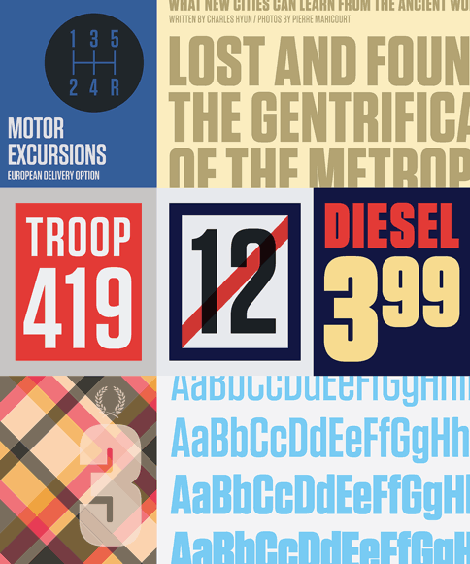
New Typeface “More Steve McQueen than Steven Seagal”
Tungsten is a flat-sided sans serif family that's muscular and persuasive without sacrificing wit, versatility, or style.
The Hoefler and Frere-Jones foundry has released a new type family called Tungsten. It's a compact and sporty sans serif that's disarming instead of pushy -- not just loud, but persuasive.
Flat-sided sans serifs have been a vital part of graphic design since its very beginning. Like many of typography's loveliest styles, these letters are an import from sign painting, where the style -- doubtless because its kit of lines and curves resembles plumbing -- is colorfully known as "Modern Gaspipe." These modular letters were an important part of the twentieth century poster, bright and optimistic in the propaganda of the Works Projects Administration (WPA), and peremptory in the Constructivism of the young USSR. In the service of any agenda, what these letters always signified was modernity, industry, and zeal.
Typographers have explored this compact modular style with mixed results. Typefaces that stay true to Depression-era forms run the risk of becoming nostalgic, forever evoking the sentimental Americana of tuxedo jackets and automats. Other designs, if they stick more doggedly to the underlying principles of rule and compass, often reveal how monotonous a typeface can become when restricted to too meager a kit of parts. Many such designs quit the fight when the going gets rough, abandoning their own internal rules when unruly letters like S or Y won't conform to the grid -- a frailty that's especially unwelcome in this kind of typeface, whose square-jawed ruggedness would otherwise recommend it for action movies and airport paperbacks.
A few years ago, H&FJ started wondering if there was a way to make a typeface in this genre that was disarming instead of brutish, one that employed confidence and subtlety instead of just raw testosterone. It was an unusual design brief for themselves, completely without visual cues and trading in cultural associations instead: "more Steve McQueen than Steven Seagal," reads one note; "whiskey highball, not a martini" suggests another. They decided to reduce the letterforms not to circles and squares, but to a manageable set of stated interrelationships -- between inside and outside, uppercase and lowercase, and one letter and the next -- that could be applied with equal consistency throughout the design. The result is Tungsten, a tight family of high-impact fonts that doesn't sacrifice wit, versatility, or style.